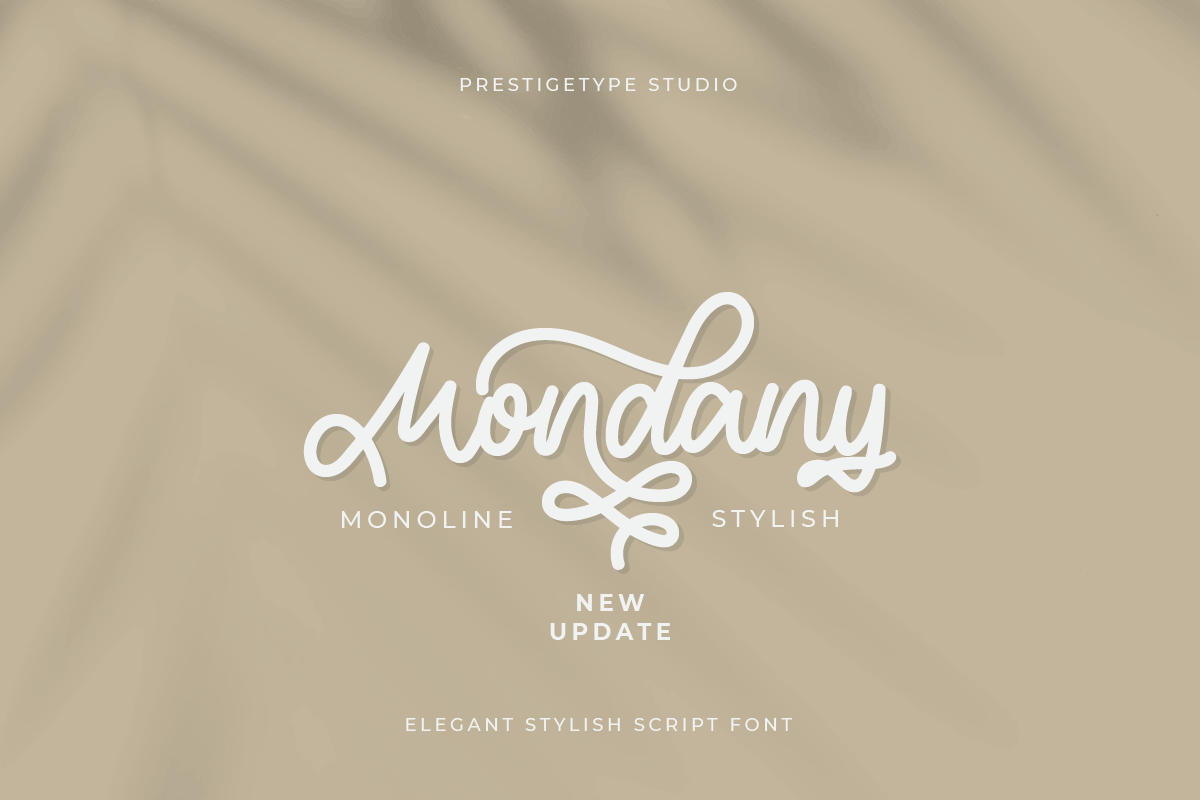
Mondany Monoline Font (Updated!)
The beauty of visual brand identity can direct people’s perspective and shows the value of the brand. Hence we try to bring beauty to our font that one may forge harmony for the audience. Introducing, Mondany, the beautiful monoline script font. Mondany is perfect for branding purposes such as logo, label, title, headline, social media, business card, quotes, and others.
Mondany includes :
- alternates
- swash
- opentype feature